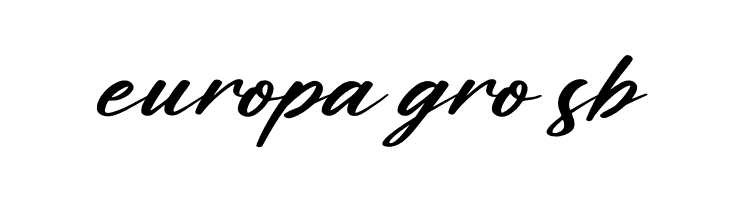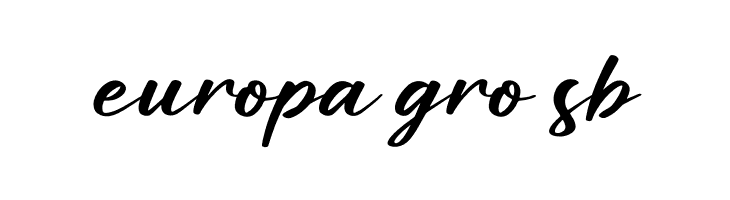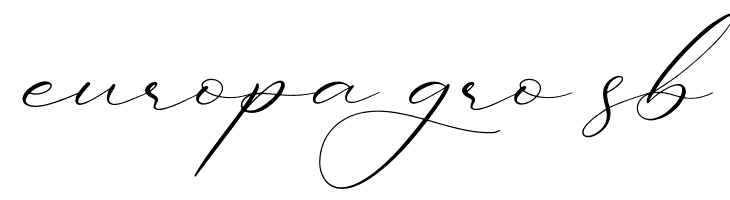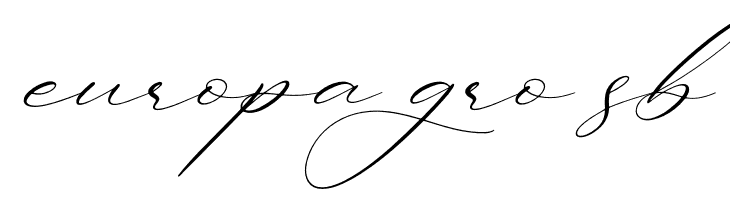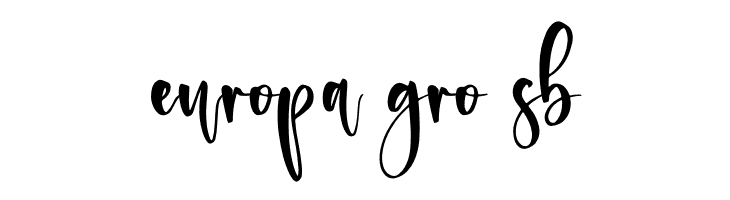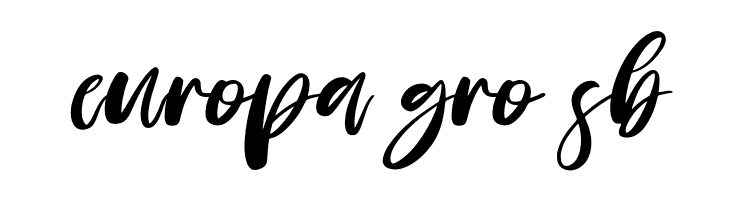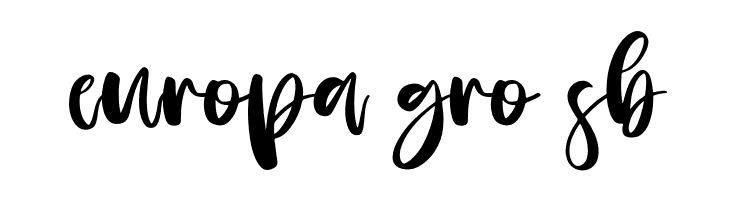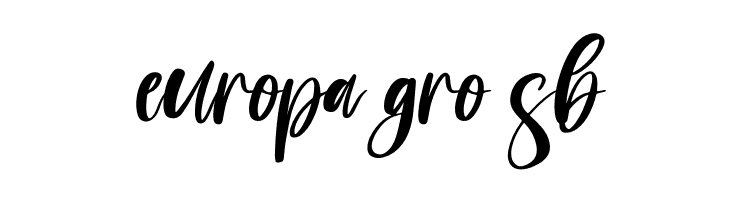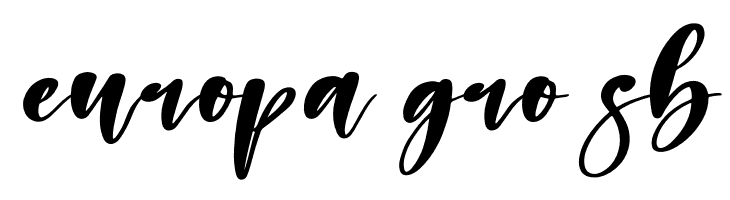
• Saturday Bright Italic
A modern, cursive script font with elegant, flowing lines and an italic slant.
• Saturday Bright
A lively, handwritten script font with fluid, connected characters.
• Ladyday
An elegant script font with flowing, ornate cursive letters and intricate flourishes.
• Ladyday Italic
An elegant, cursive script font with intricate loops and swashes.
• Emelyday
A lively handwritten font with dynamic and expressive strokes.
• Roseday Italic
A bold, cursive script font with a flowing, italicized style.
• Roseday
A lively and expressive handwritten font with fluid, dynamic strokes.
• Saturday Morning Italic
A bold, cursive font with dynamic, sweeping strokes and a lively style.
• Saturday Morning
A bold, energetic handwritten script with a playful and modern aesthetic.
• Holiday Italic
A bold, cursive font with a handwritten, elegant style.